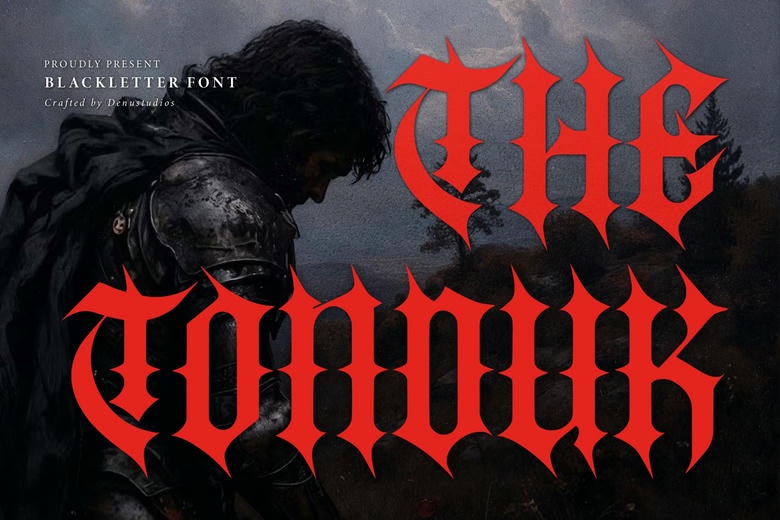
Tonduk Font
Bring a fierce medieval vibe, dark fantasy mood, and bold gothic style to your work with The Tonduk. This eye-catching blackletter font has sharp, spiky serifs, thick gothic lines, and strong blocky shapes inspired by ancient warriors. Its bold look gives your designs a powerful, dark-ages feel that stands out.
Tonduk Blackletter Font